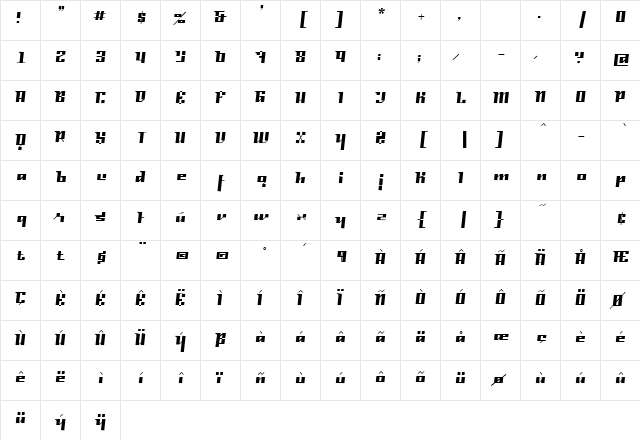
Rosalinde Italic
Design Context for Rosalinde Typeface
Rosalinde is a composed and adaptable typeface that performs quietly and consistently across a wide range of design contexts. The slanted form adds forward momentum and visual energy.
Pro Tip: Try Rosalinde for annotation and caption copy alongside an upright companion — the contrast in angle creates a dynamic but ordered typographic system.